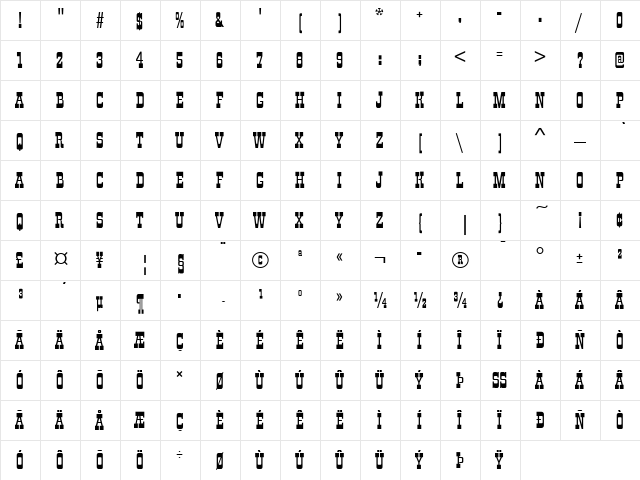
Zirkus D Regular
Design Context for Zirkus D Typeface
Zirkus D is a composed and adaptable typeface that performs quietly and consistently across a wide range of design contexts.
Pro Tip: Pair Zirkus D with a font of contrasting weight or personality to build a more expressive typographic hierarchy.